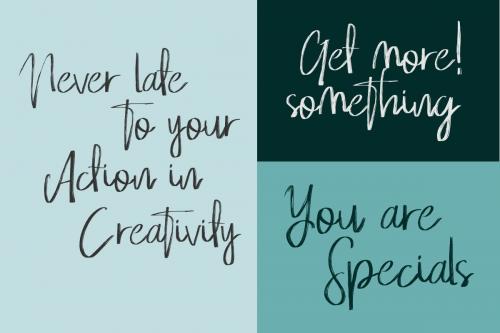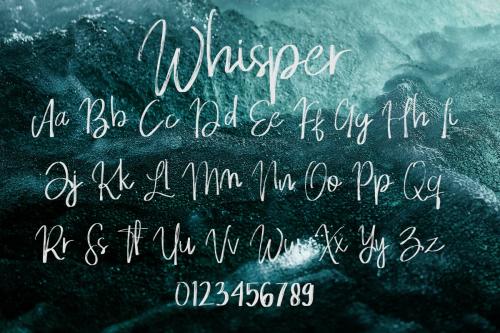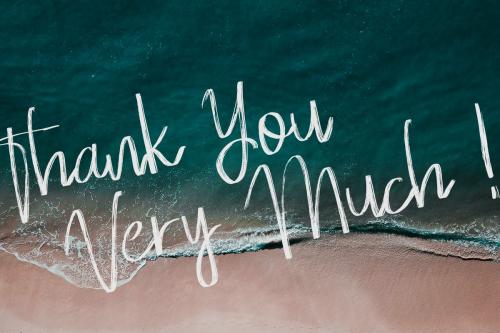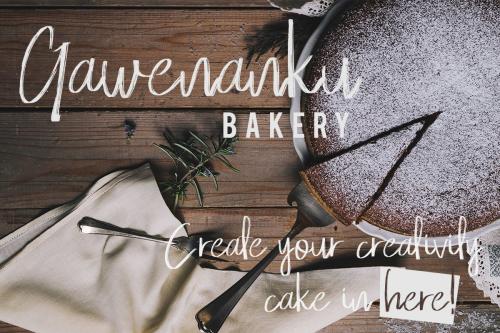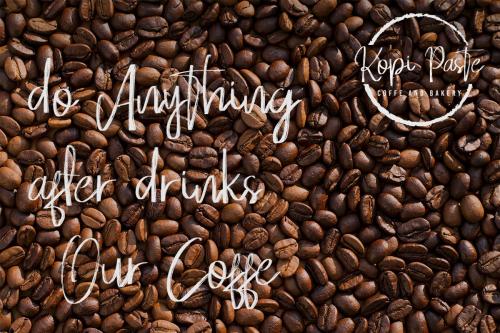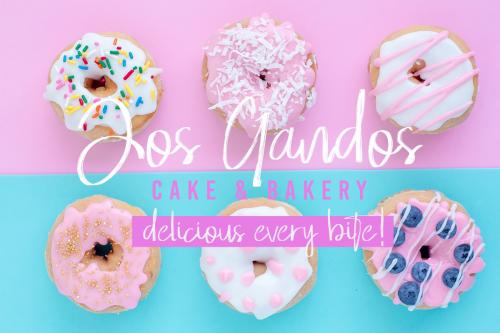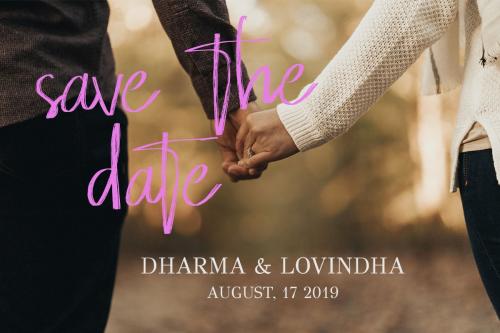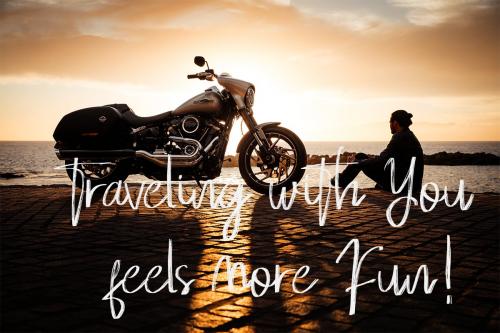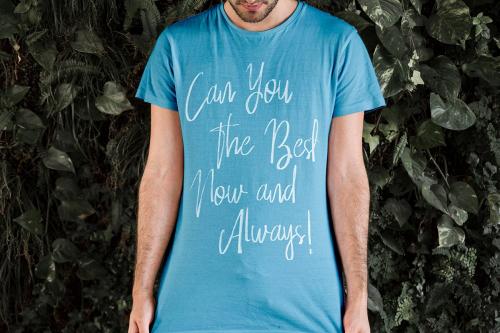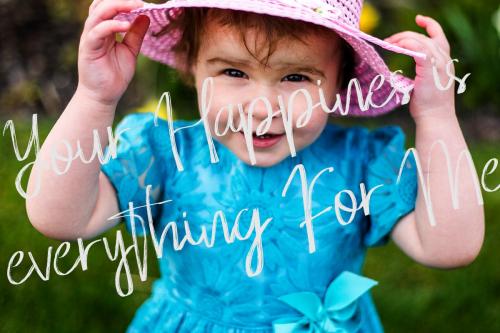
Whisper Brushes Script is a unique handwritten brush font. Its unique flow and style makes it perfect to use for prints, logos, signatures, quotes, badges, labels, packaging design, blog headlines or simply use it to add a fancy text on a photo.
Whisper Brushes Script comes with upper and lowercase Basic Characters, Numbers, Multilingual and Punctuation. Diacritics are also available for Western and Central European Languages.